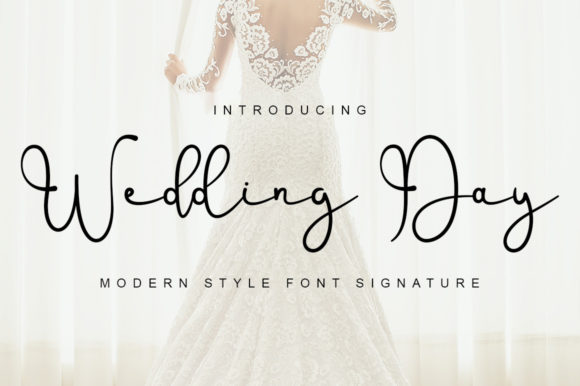
Prepare yourself to be swept off your feet by Wedding Day Font, the script font that will transform your designs into breathtaking masterpieces. Inspired by the magic of matrimony, this font exudes elegance and sophistication, adding a touch of luxury to every letter.
Immerse yourself in a world of endless possibilities. With Wedding Day Font, your designs will effortlessly capture the essence of romance and timeless beauty. Say goodbye to mundane fonts and embrace a font that speaks volumes, leaving your audience captivated.
Crafted with meticulous attention to detail, Wedding Day Font features subtle curves and precise kerning, ensuring a flawless visual experience. Its enchanting strokes will effortlessly elevate your wedding invitations, greeting cards, posters, and branding materials, making them stand out from the crowd.
Unleash your creativity and allow Wedding Day Font to lead you on a journey of artistic expression. Its versatility knows no bounds, seamlessly adapting to a wide range of design projects. Whether you're designing logos, social media graphics, or even handwritten notes, this font will add a touch of elegance and charm to every project you undertake.
With Wedding Day Font, you'll have the power to tell stories that resonate with your audience. Its captivating curves and delicate flourishes will evoke emotions and create a lasting impression, leaving your designs etched in the hearts of those who see them.
Don't settle for ordinary fonts. Choose Wedding Day Font and embark on a design journey that's both enchanting and unforgettable. Let your creativity soar and experience the joy of designing with a font that truly captures the essence of love and celebration.